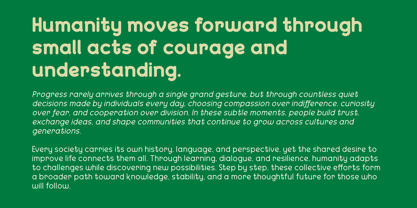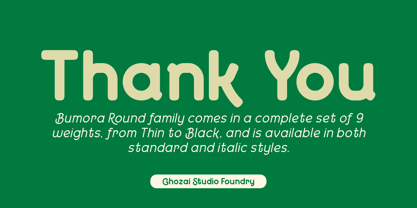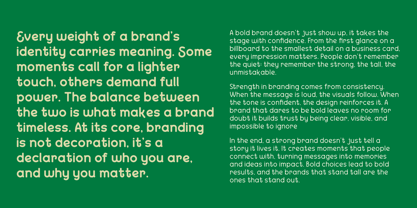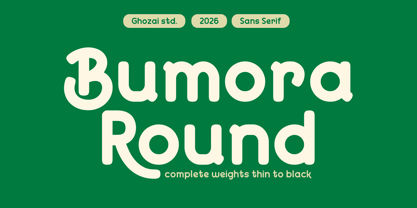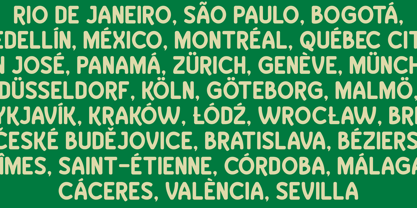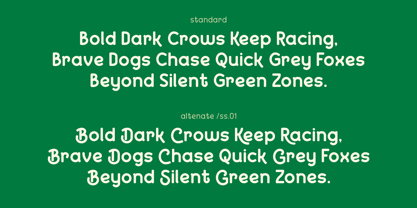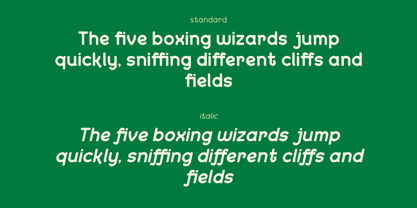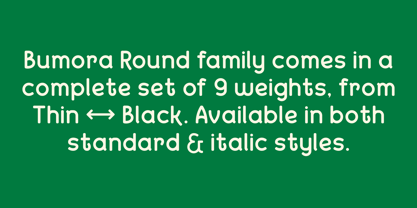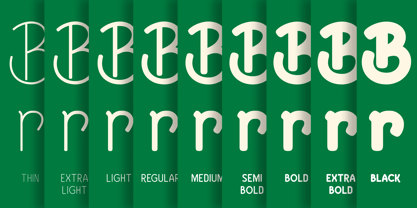
Bumora Round
by Ghozai Studio
The Bumora Round Font Family was designed by Manzur Ghozaali and published by Ghozai Studio. Bumora Round contains 18 styles and family package options. More about this family
Bumora Round is a versatile rounded grotesk-sans font family that offers 9 distinct weights, ranging from Thin to Black, with both regular and italic styles available, resulting in a total of 18 fonts. This extensive weight range, along with a rich set of symbols, OpenType features, and multilingual glyph support, ensures adaptability for various languages and design needs. Its modern, clean, and bold aesthetic makes it perfect for a wide array of applications, including display, branding, signage, festival posters, sports, and more. Whether crafting impactful headlines, unique logos, or clear signage, Bumora Round seamlessly blends style with functionality. Its flexibility across different design styles makes it an excellent choice for any project that requires a bold and contemporary flair.
Designers: Manzur Ghozaali
Foundry: Ghozai Studio